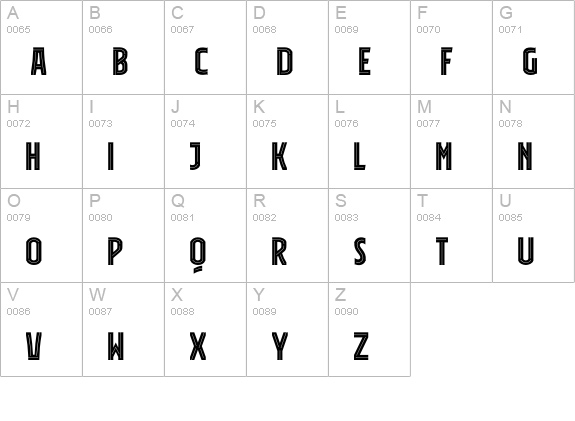
The FC Barcelona font for the 2021-2022 season captures the essence of passion, power, and precision in every letter. With its sleek and modern design, this font exudes a sense of strength and unity, perfectly reflecting the spirit of the iconic club. Featuring clean lines and bold strokes, the FC Barcelona font is not just a typeface – it's a statement of pride and dedication.